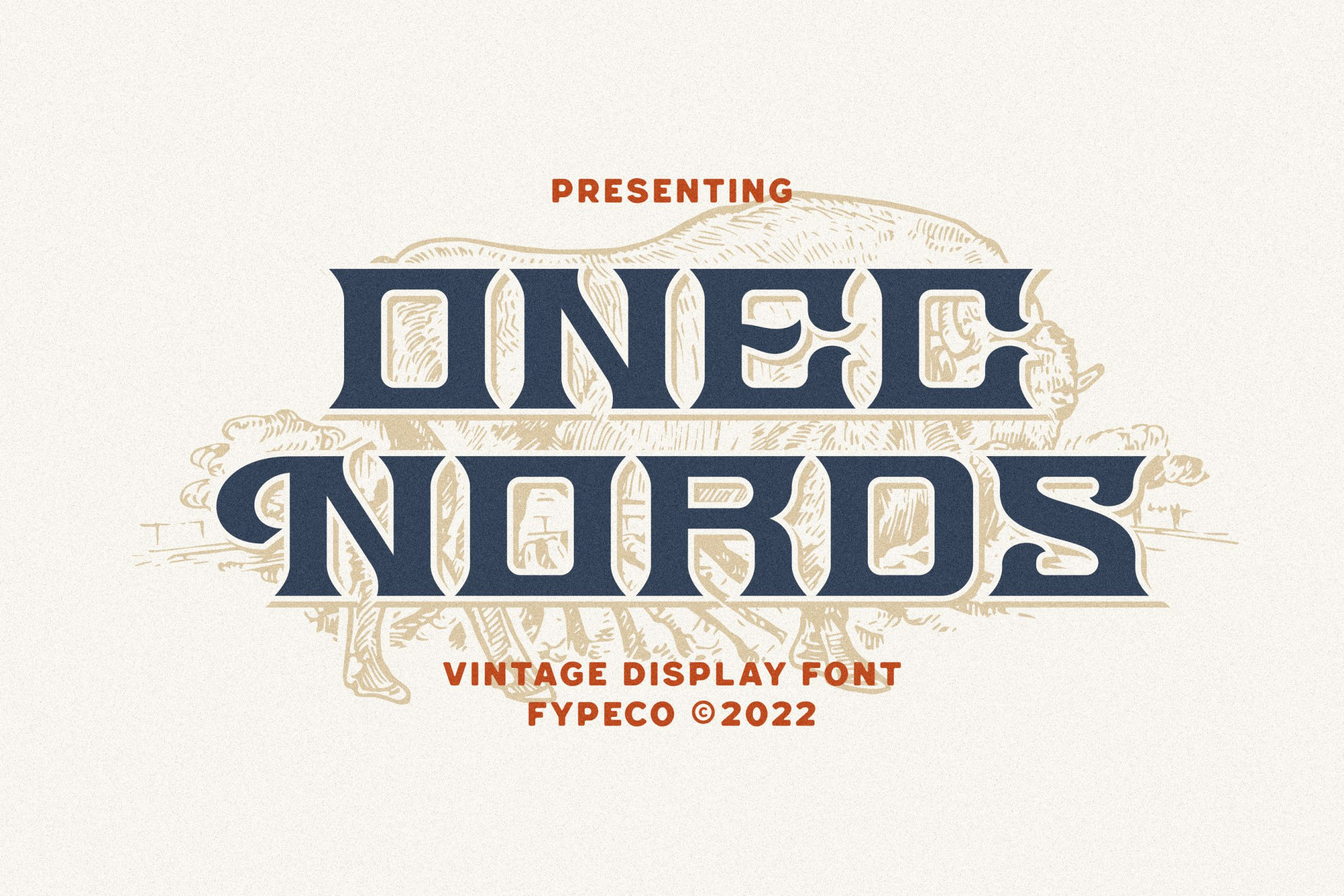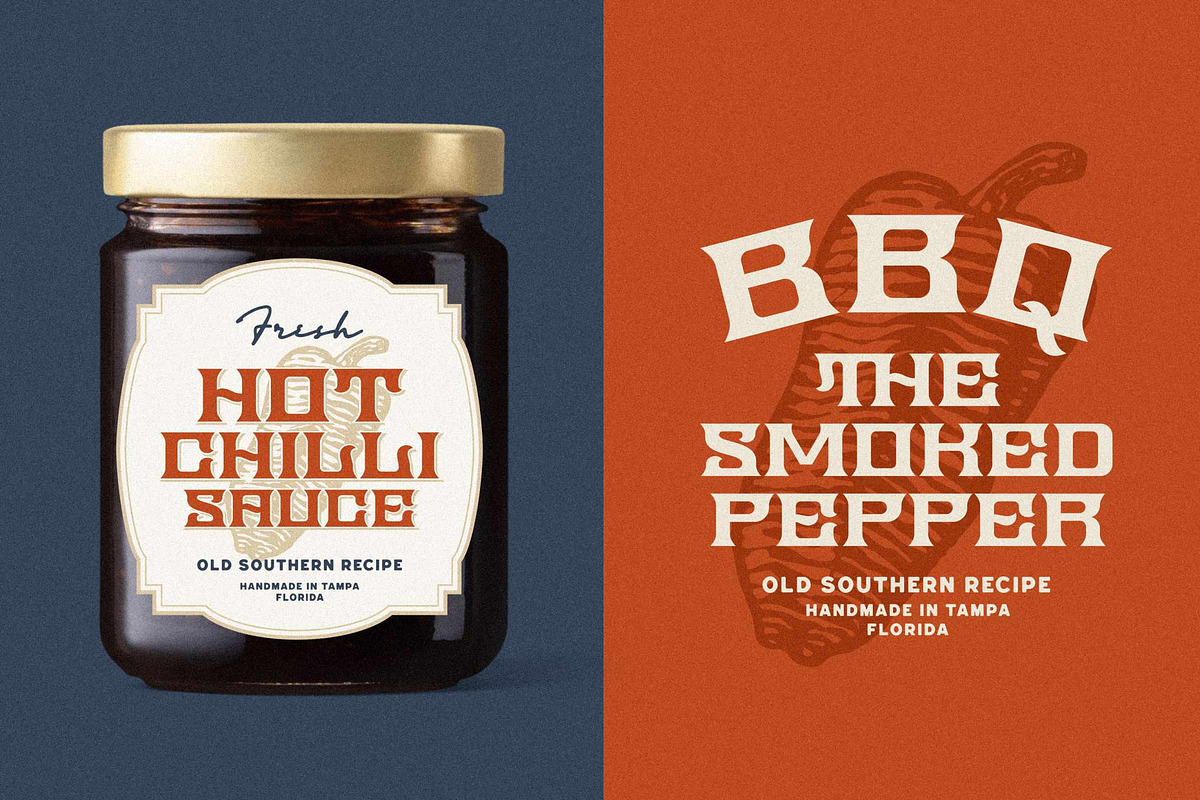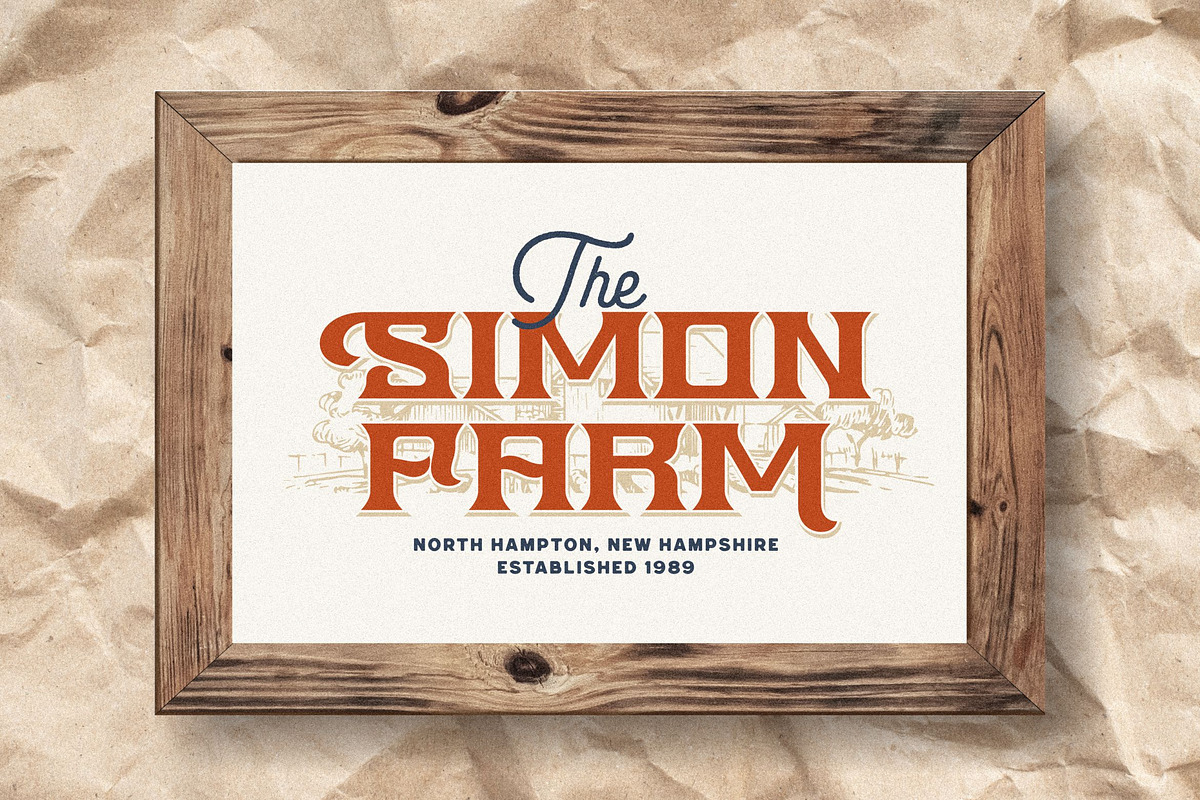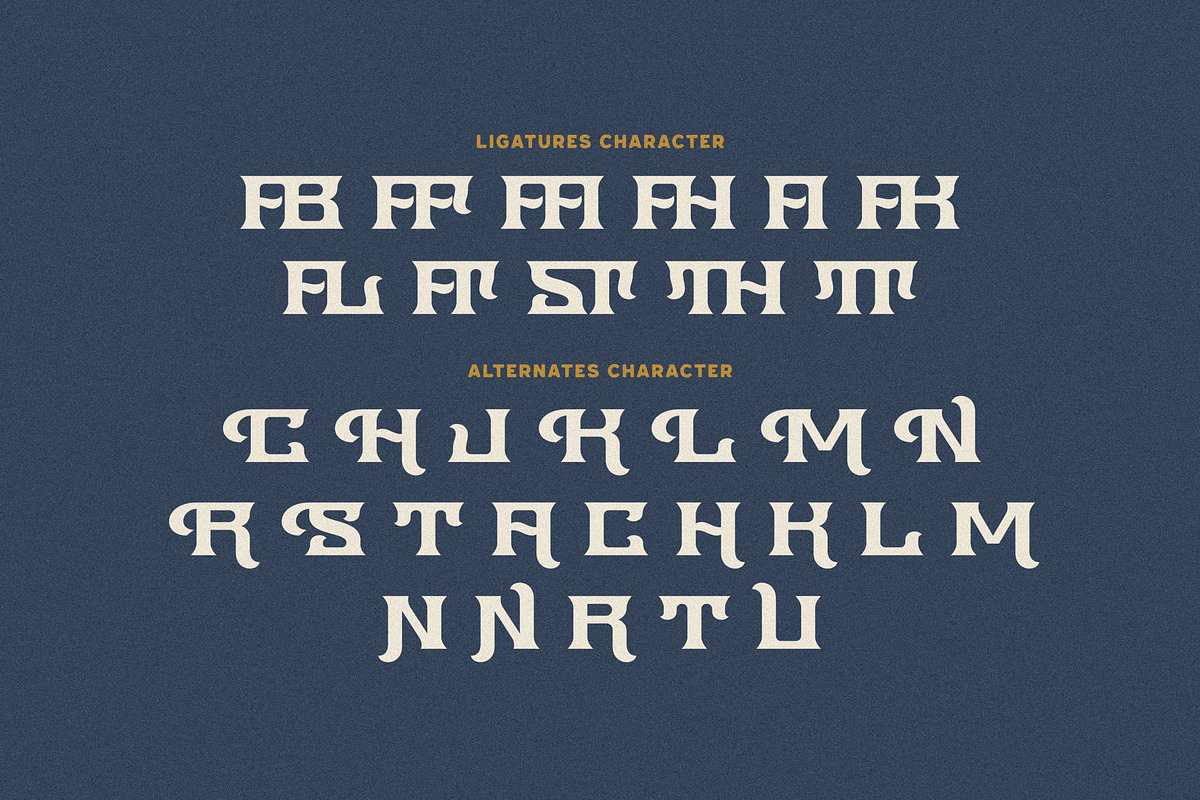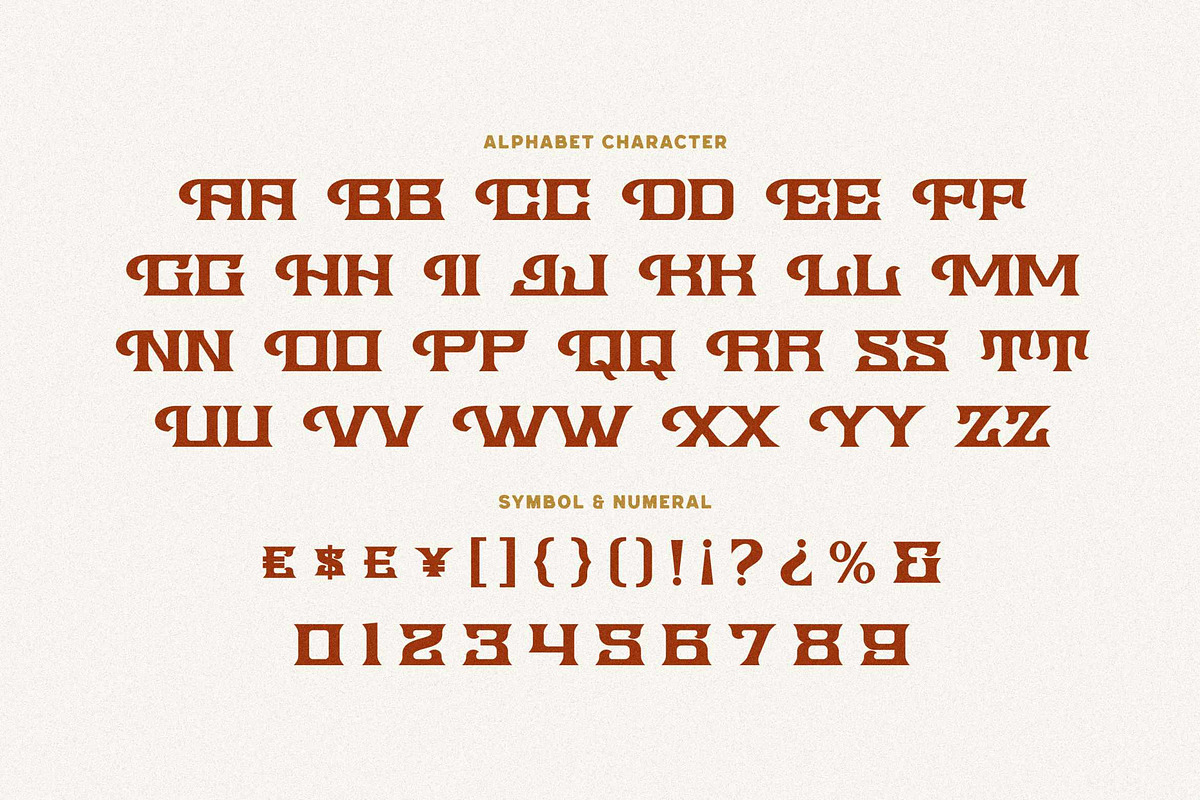
Onec Nords - Vintage Display Font
Onec Nords is a vintage display font with bold style. This font gives a feel of a vintage, classic, old, and based on handmade. This font is wonderful to use in logos, designs, labels, clothes or anything you want. Play with all the variations and discretional ligatures.
- Alternatives